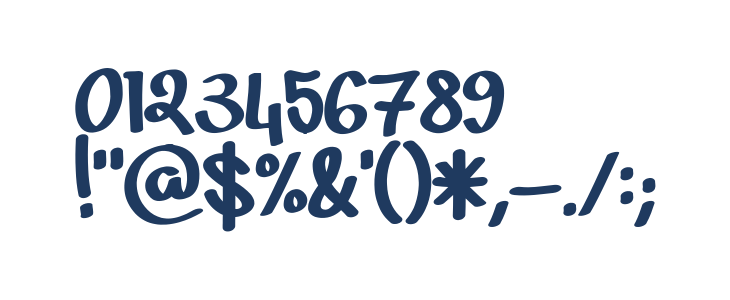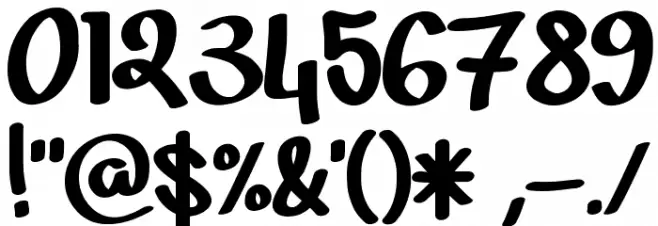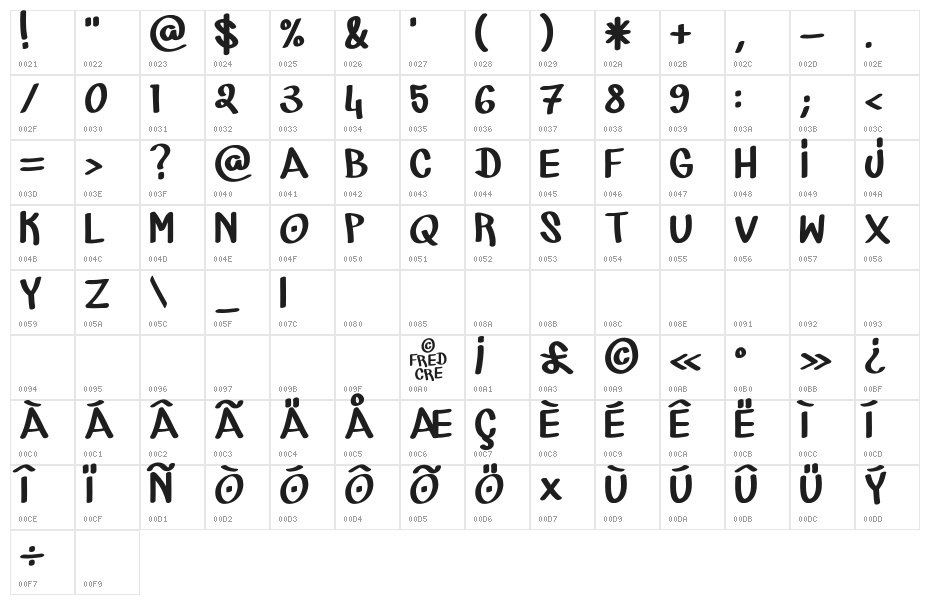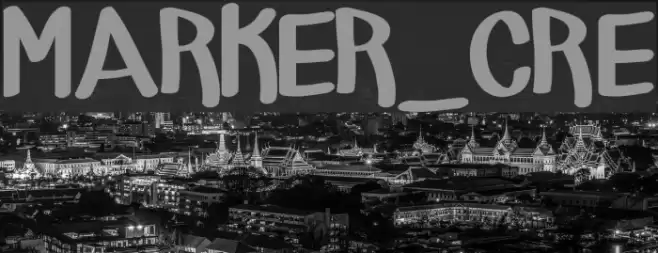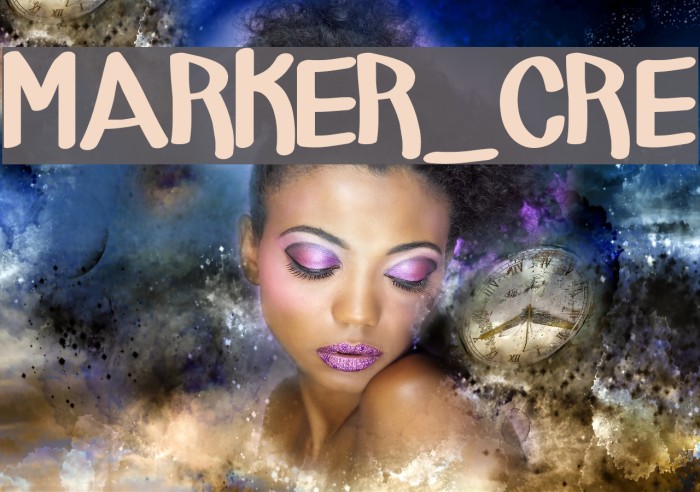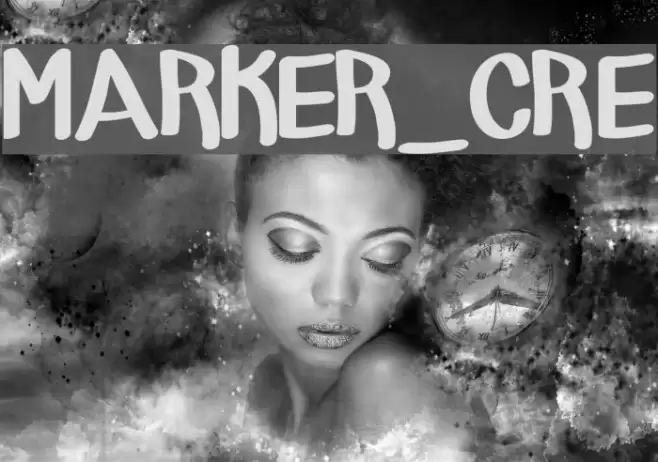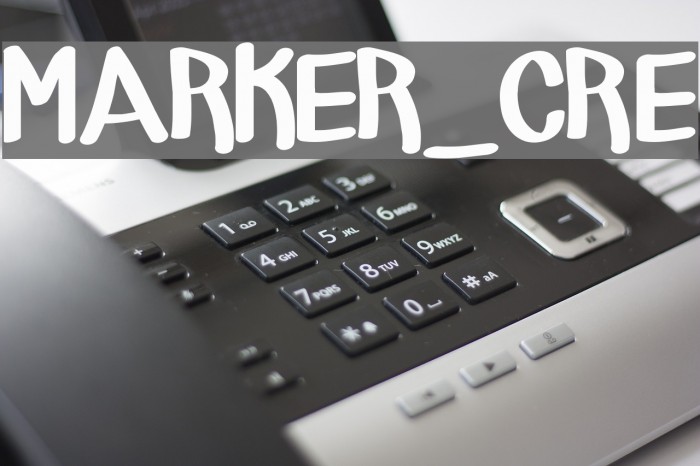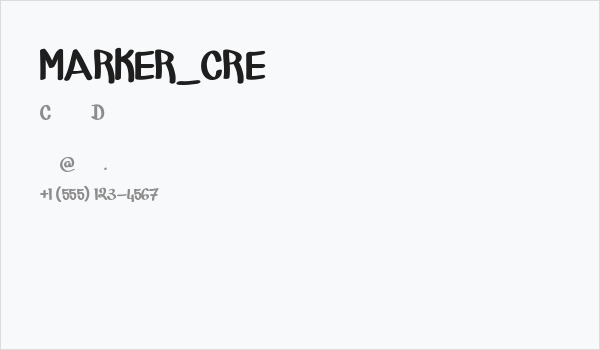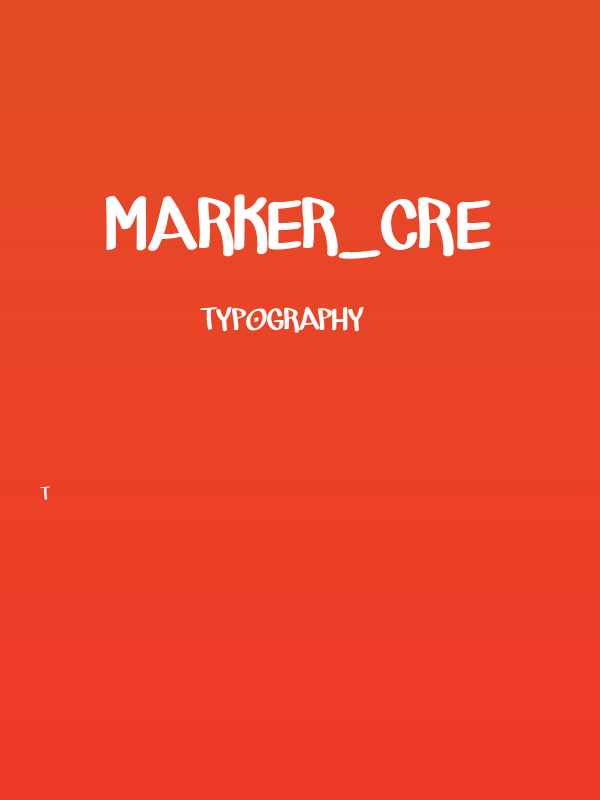
MARKER_CRE Font
MARKER_CRE Description
This playful and bold font features a handwritten style with a casual and friendly appearance. The characters are rounded and slightly irregular, giving it a lively and dynamic feel. The uppercase letters are prominent and well-defined, while the lowercase letters maintain a consistent style that complements the overall look. The numbers are bold and easy to read, and the special characters are creatively designed to match the font's energetic vibe. This font is perfect for projects that require a fun and informal touch, such as children's books, posters, and creative branding.
| Proposed Projects | Children's books, posters, creative branding, informal invitations, and playful packaging. |